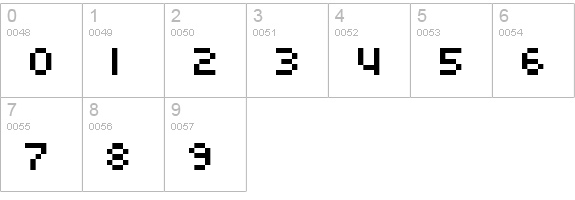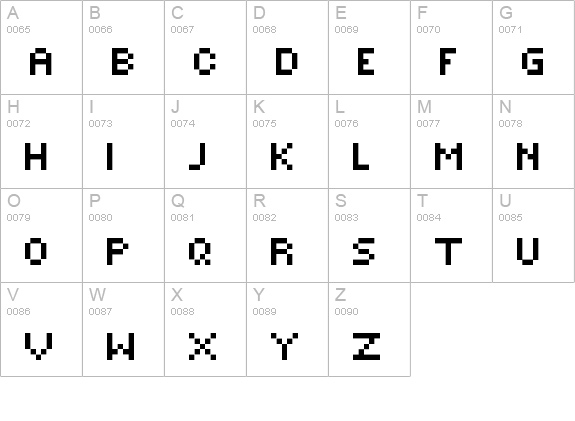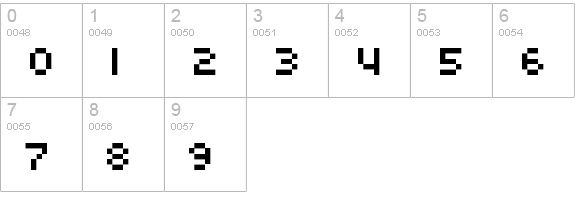
ROTORcap Font Details
Introducing ROTORcap font, a modern and stylish typeface that exudes sophistication and charm. With its sleek lines and contemporary design, ROTORcap is perfect for adding a touch of elegance to any project. This versatile font is ideal for a wide range of applications, from branding to web design to print materials. What sets ROTORcap apart is not just its sleek design, but also the fact that it is completely free to download. That's right, you can get your hands on this stunning font at no cost at FontsMarket.com. Whether you're a designer looking to elevate your creations or a business owner seeking to make a memorable impression, ROTORcap is the perfect choice. Download ROTORcap today and add a touch of sophistication to your projects.